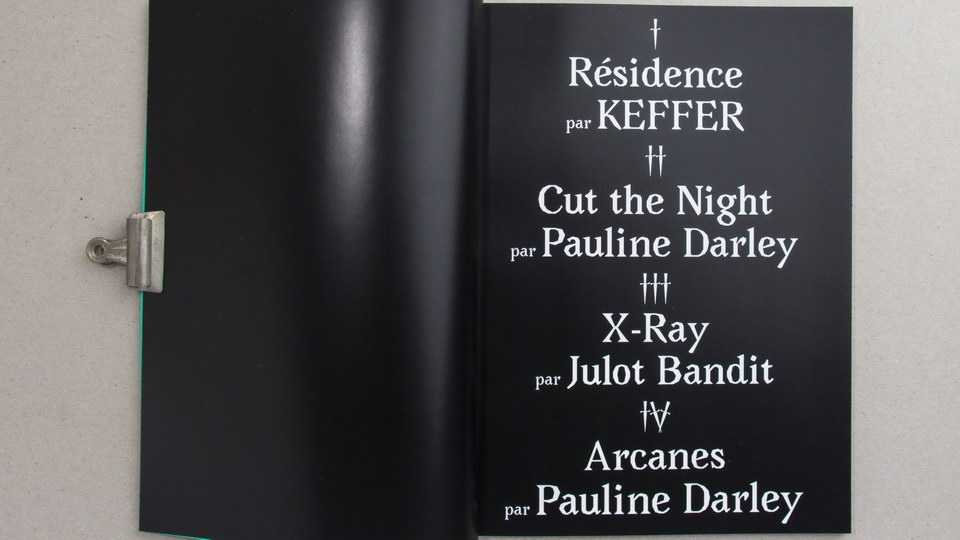
Avara is a libre transitional serif curveless type family. The placement of its nodes is exclusively based on a rough square grid. The original reason of this design choice was to facilitate collaboration on the font, and it now results in the radical and highly constrained shapes of this type family.
The Bold style was initiated by Raphaël Bastide and continued by Wei Huang and Lucas Le Bihan; the Bold Italic by Lucas Le Bihan; the Black was started by Walid Bouchouchi and Jérémy Landes, then it was boldened again and finished by Lucas Le Bihan.